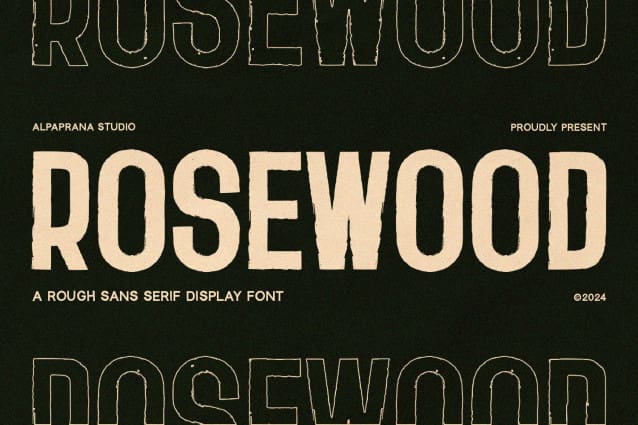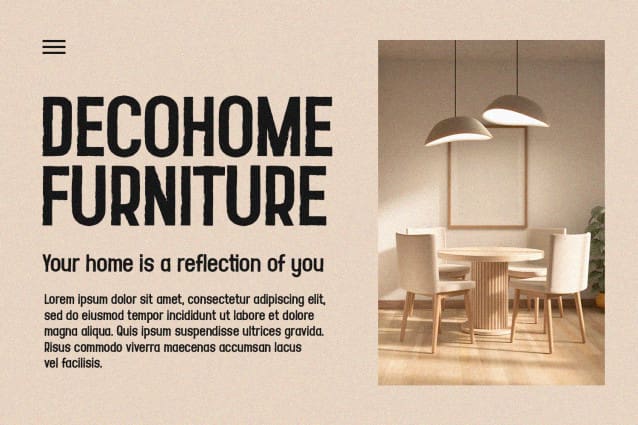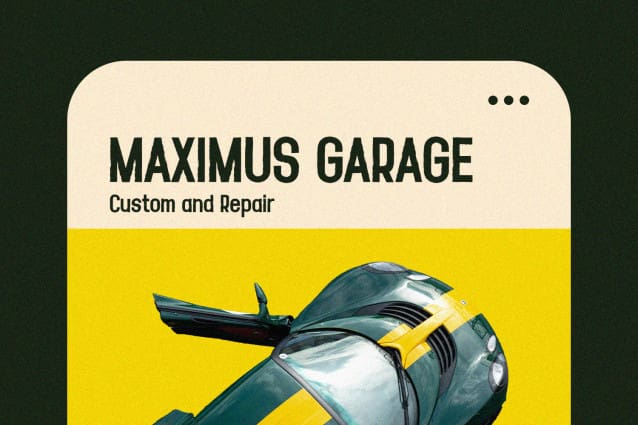
Rosewood Sans Font
Rosewood Sans Font is a rough sans serif font with unique and modern feels. It will be perfectly used for Branding, Logo Design, Lettering, Logotype, Clothing, Poster, magazine, packaging, posters, shopping bags, t-shirts, book covers, photography, special events and other design project.